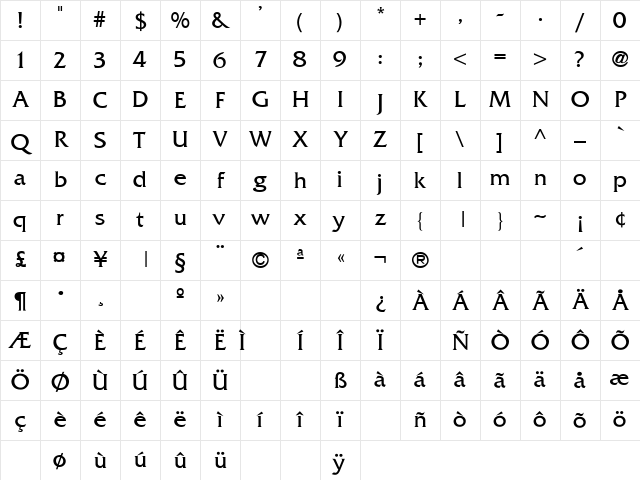
Quadrata Regular
Design Context for Quadrata
Quadrata is a composed and adaptable typeface that performs quietly and consistently across a wide range of design contexts.